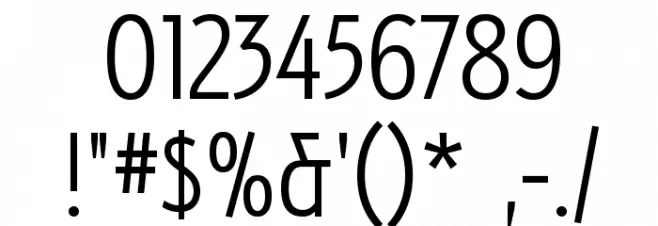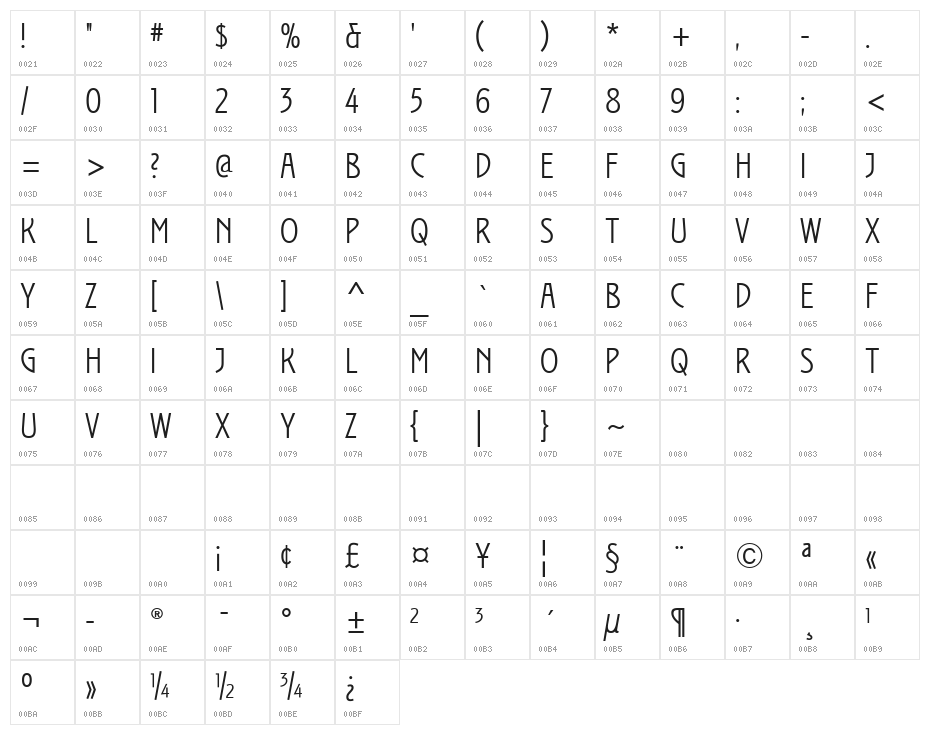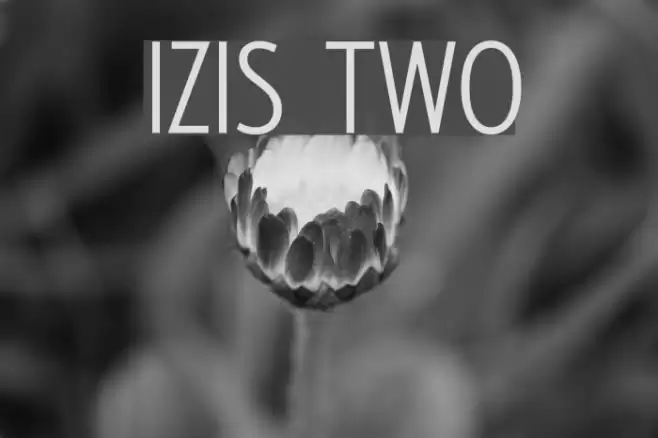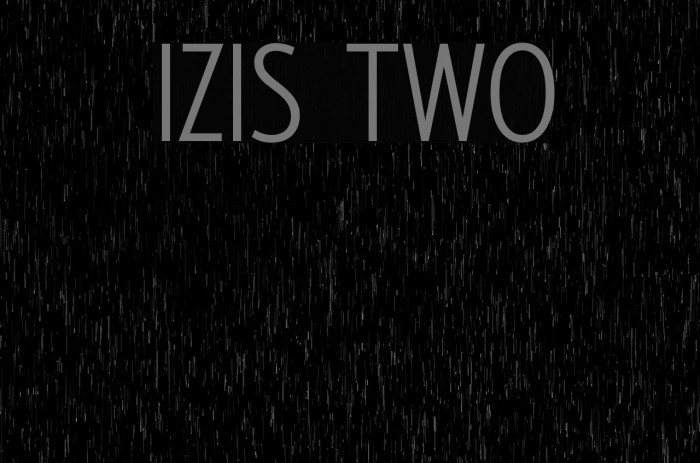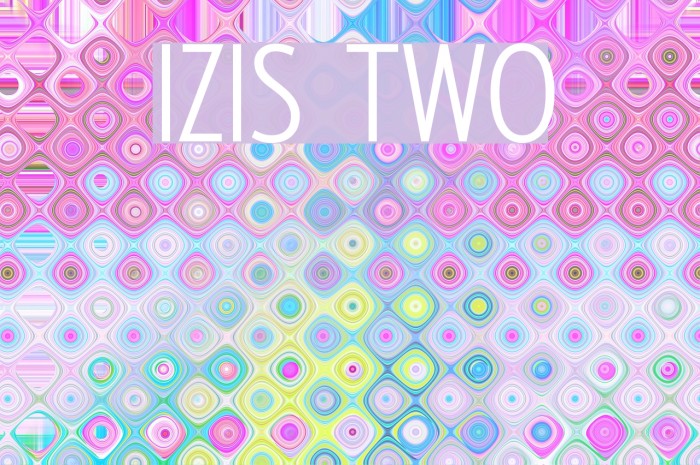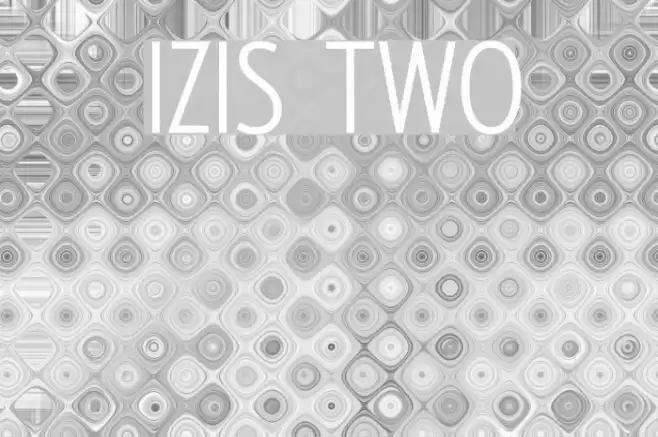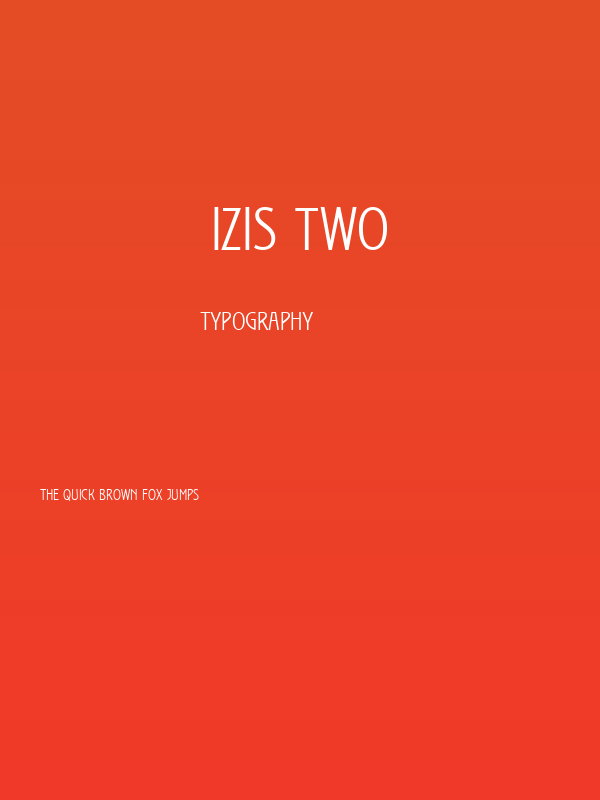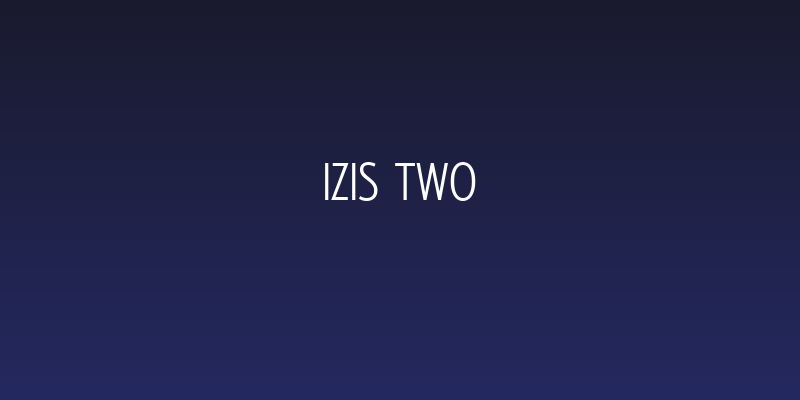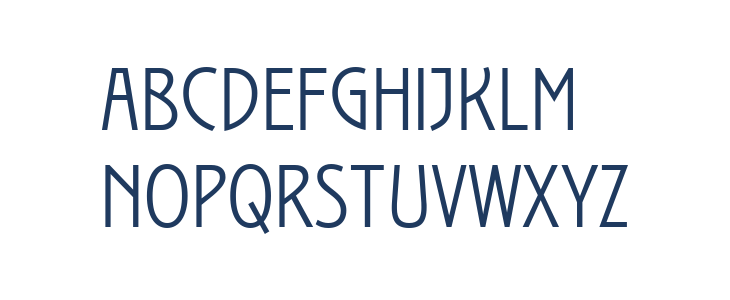
Izis Two Font
Izis Two Description
This font features a clean and modern sans-serif style with a geometric structure. The characters are tall and narrow, giving it a sleek and contemporary appearance. The strokes are consistent in width, contributing to a uniform and balanced look. The uppercase letters are slightly taller than the lowercase, maintaining a harmonious proportion. The numerals are clear and distinct, ensuring readability. Special characters are well-defined, adding versatility to the font. Overall, it exudes a professional and minimalist vibe, suitable for various design applications.